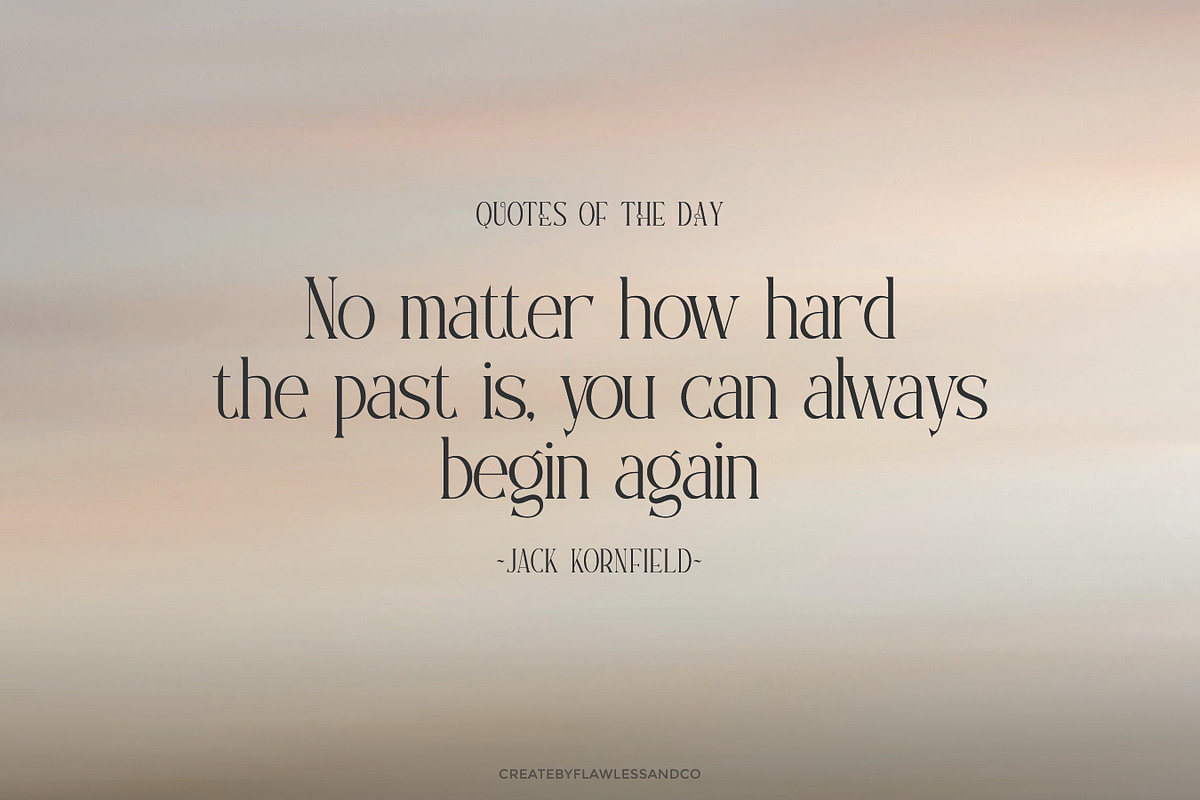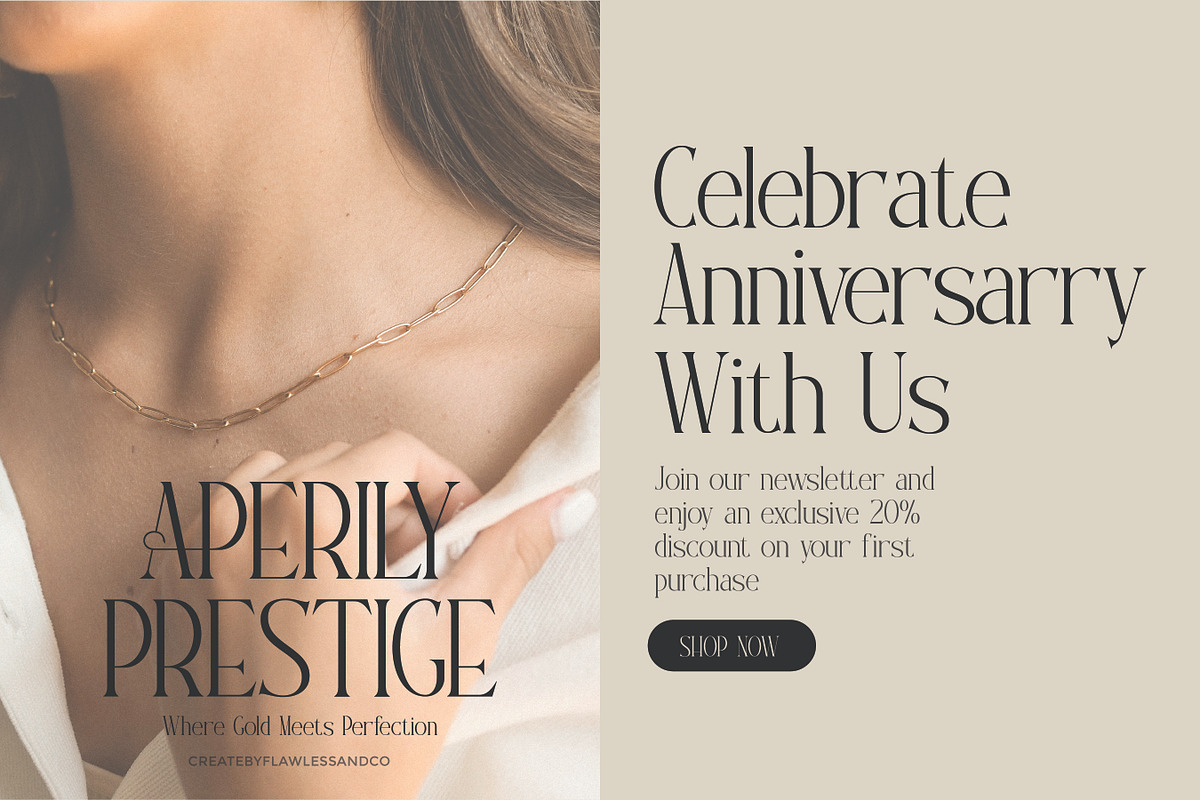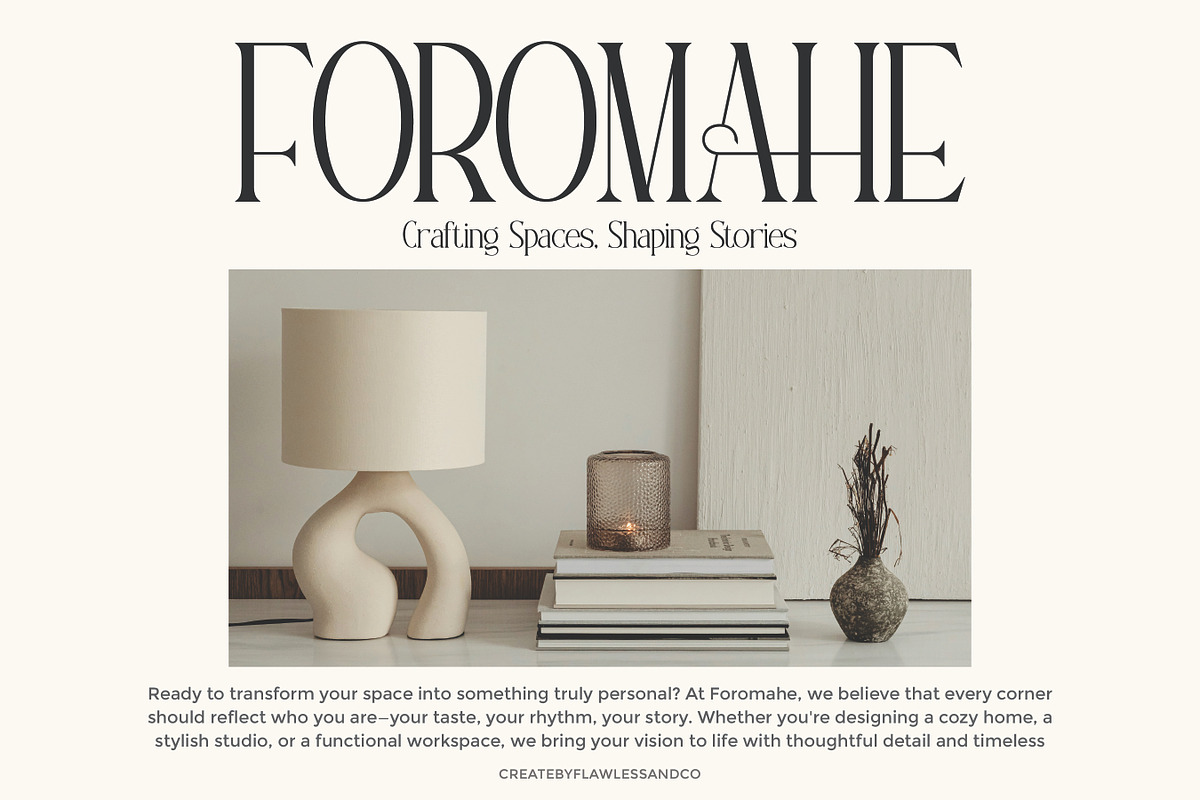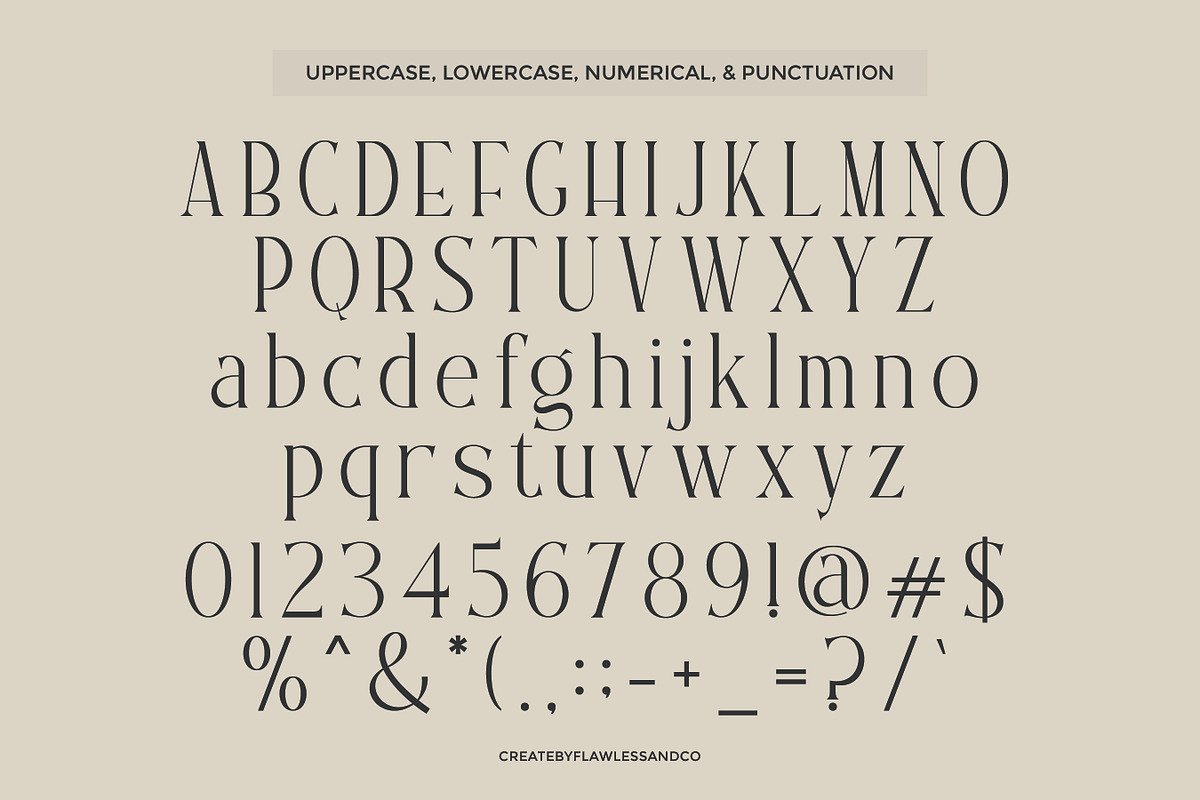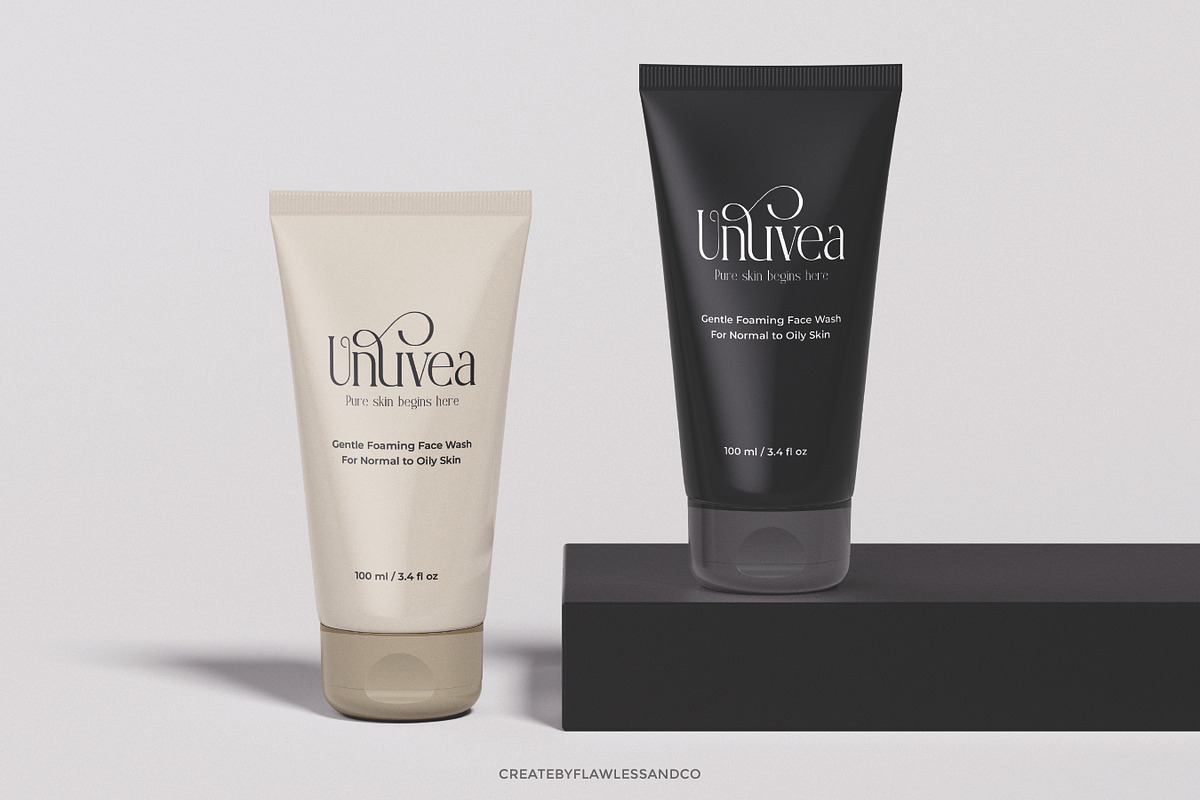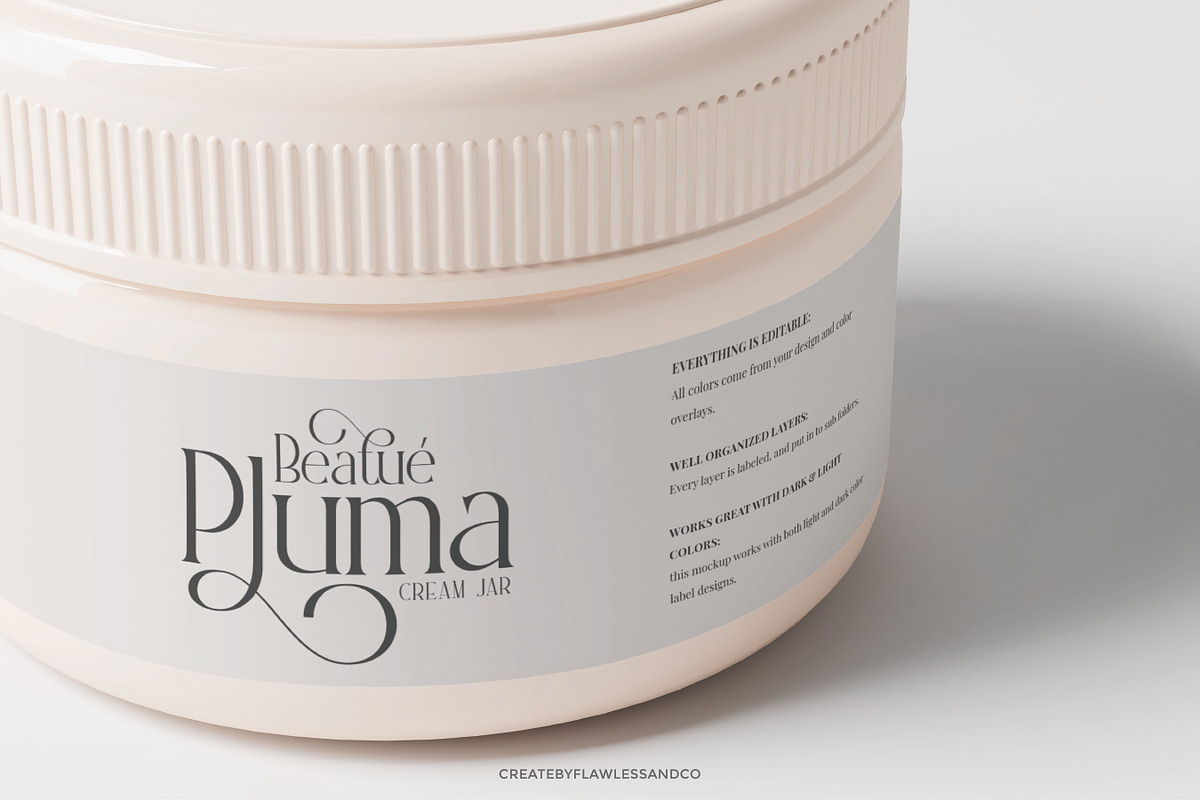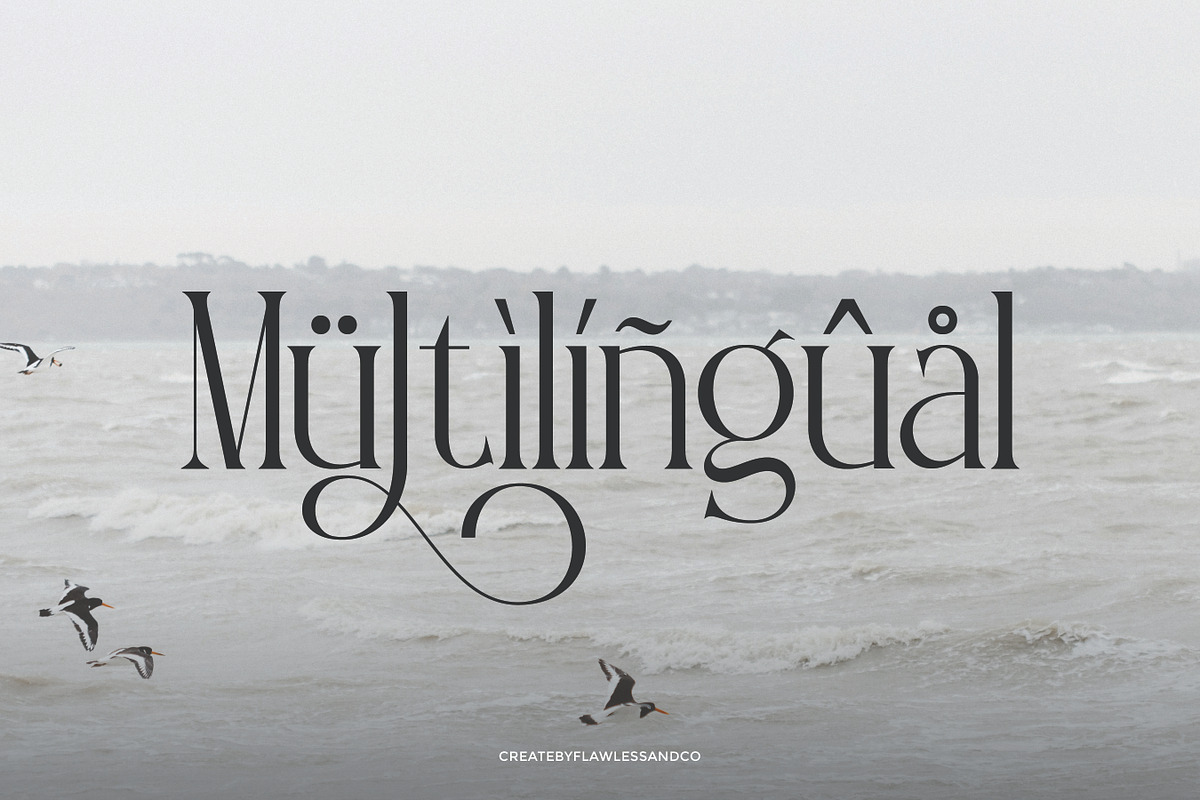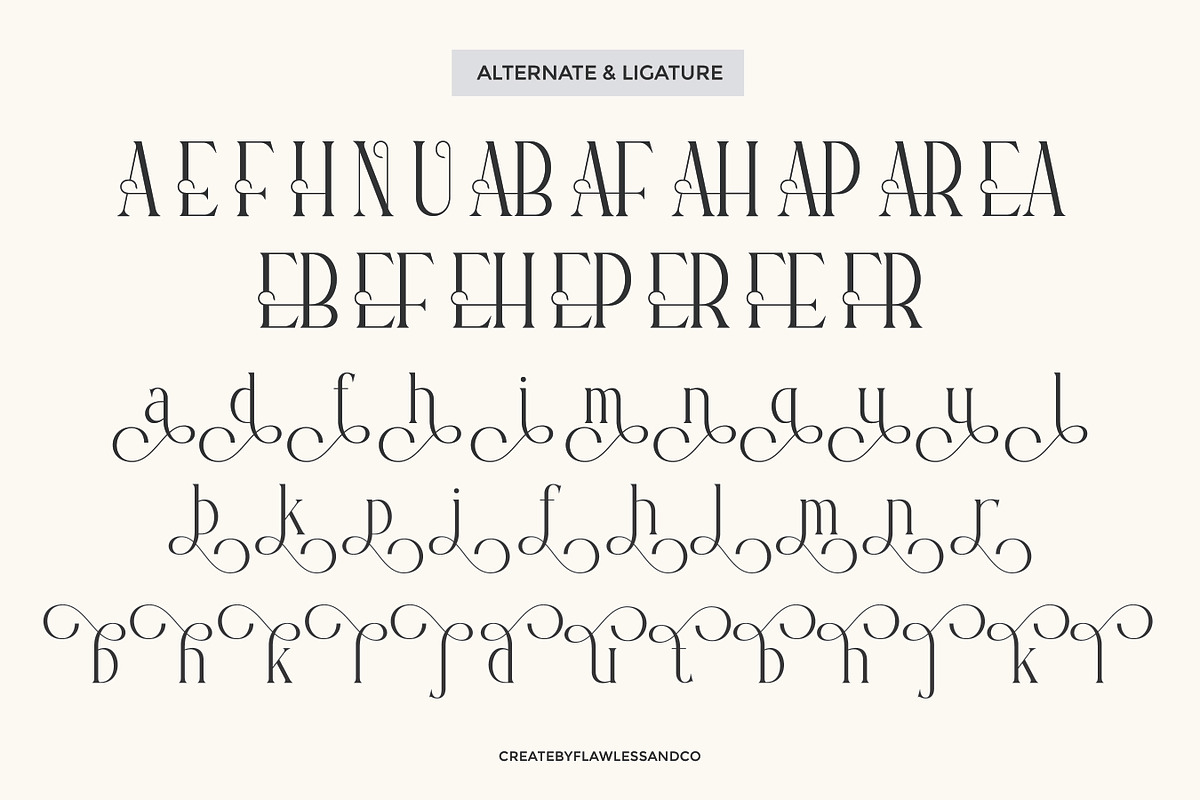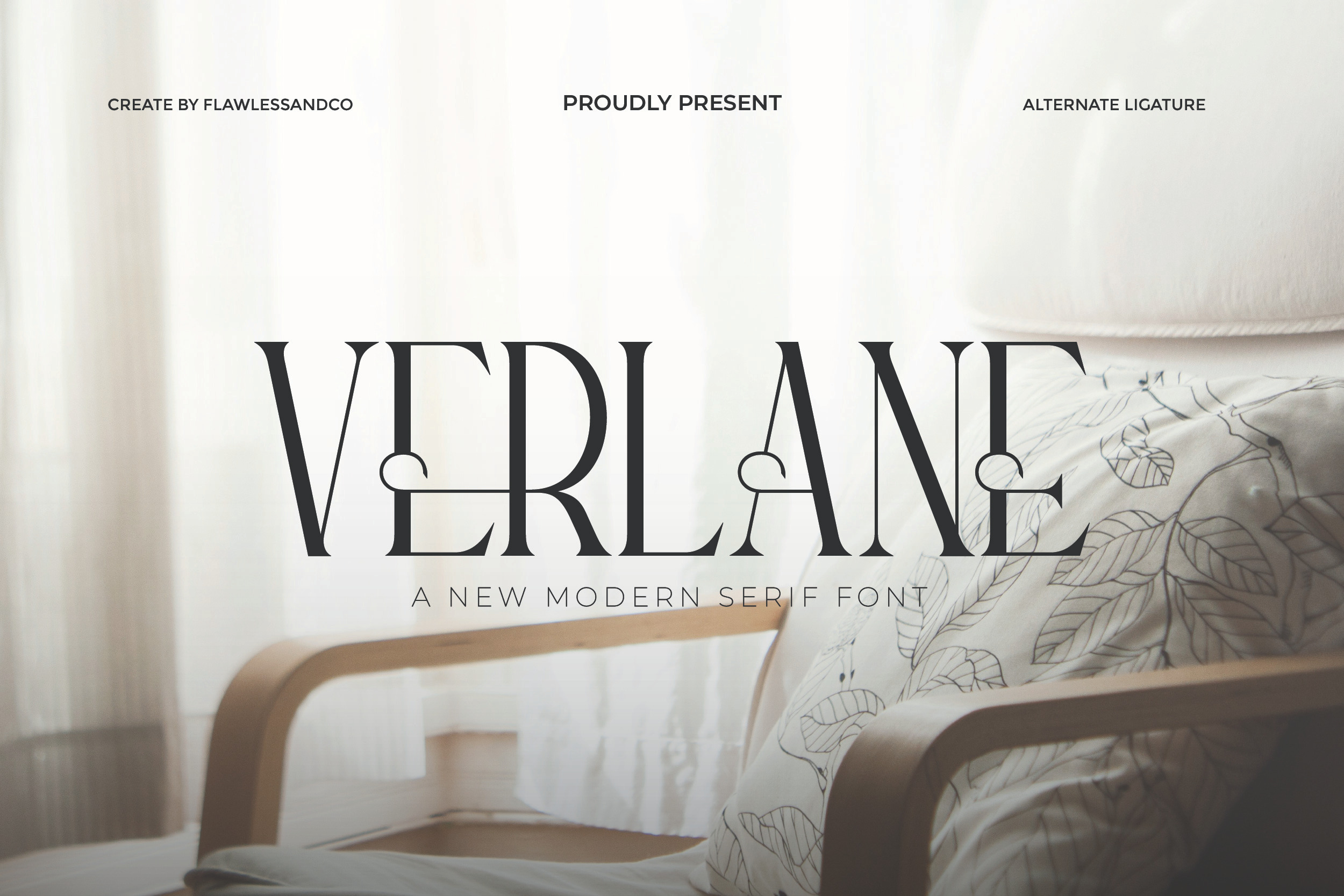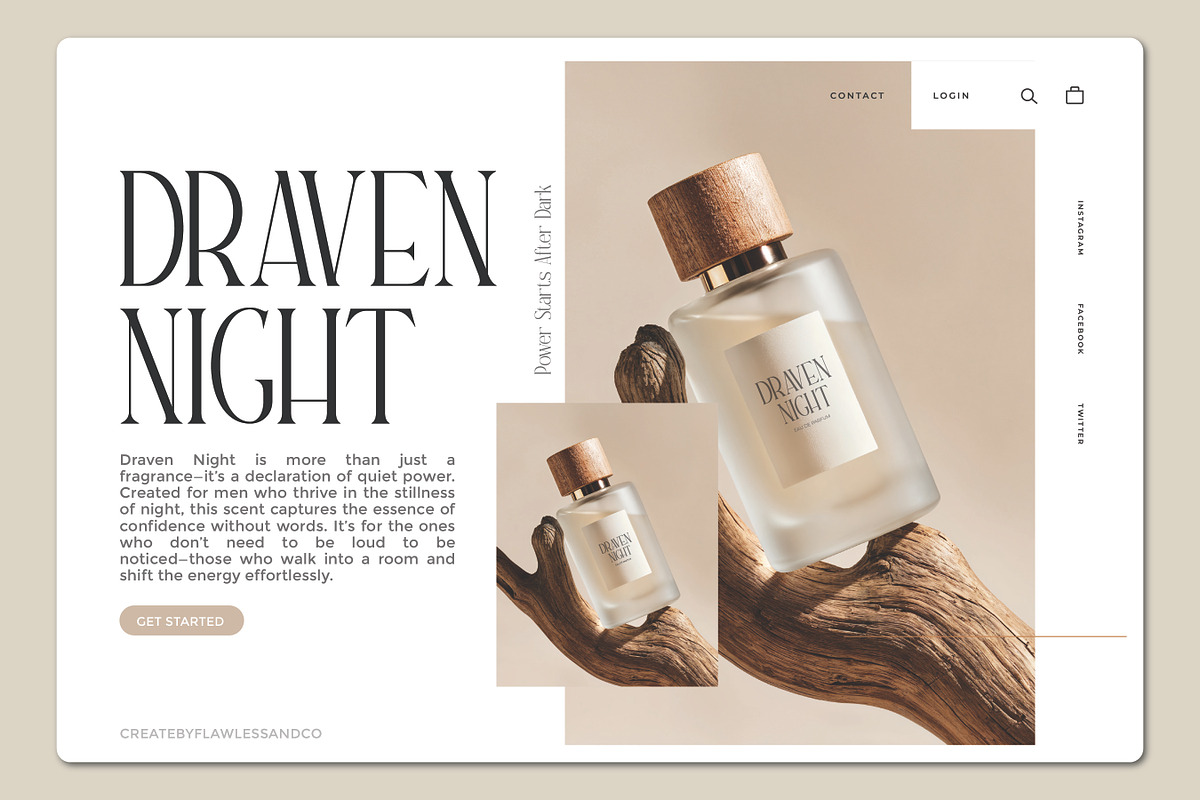
Verlane - Serif Modern Font
Verlane — Modern Serif Font
Verlane is a classic-modern serif typeface that blends vintage elegance with contemporary simplicity. Designed with meticulous attention to detail, Verlane features soft yet confident serifs, balanced proportions, and graceful curves, making it an ideal choice for designs that demand sophistication and high-end appeal. This typeface strikes the perfect harmony between traditional charm and modern refinement. With stylish alternates and decorative ligatures, Verlane offers endless creative potential—perfect for projects that aim to make a lasting visual impression.
- Artistic alternates & elegant ligatures
- Full punctuation & numerals
- Luxury & fashion branding
- Editorial & magazine layouts
- Sophisticated logo designs
- Premium product packaging
- Elegant wedding invitations & stationery
Who Should Use Verlane?
Verlane is ideal for designers, creatives, and brands seeking a serif typeface that conveys timeless elegance and understated luxury. Its refined aesthetic and versatile features make it especially suitable for:
- Brand designers crafting upscale logos and visual identities
- Art directors working on fashion, beauty, or lifestyle magazines
- Packaging designers creating premium product experiences
- Stationery designers producing wedding invitations, event suites, or high-end personal branding
- Creative studios looking for a go-to serif that blends classic style with modern edge
- Content creators and bloggers who want their visuals to feel editorial and elevated
Whether you're designing for a boutique brand or an international campaign, Verlane brings a level of sophistication that enhances every visual narrative.
A Must-Have Font for Brand, Logo, Beauty & Wedding Designers
Verlane is more than just a typeface — it's a design essential for creators who value elegance, clarity, and timeless beauty. With its graceful curves, delicate serifs, and refined letterforms, Verlane brings a sense of sophistication to every project. Whether you're building a brand, designing a signature logo, crafting luxury packaging, or creating heartfelt wedding invitations, Verlane elevates your work with effortless style.
Its versatile character set, stylish alternates, and elegant ligatures provide endless design flexibility, making it a powerful tool for creatives who want to make a lasting impression.
Why Choose Verlane for Brand, Logo, Beauty & Wedding Designer Projects?
Verlane was crafted with a designer’s eye and a storyteller’s heart — making it the perfect choice for projects that require a touch of elegance and distinction.
Here’s why designers choose Verlane:
Refined Elegance Verlane’s timeless serif forms and graceful curves add a sense of luxury and sophistication to any design — perfect for high-end branding and boutique logos.
Creative Flexibility With a rich set of alternates and ligatures, Verlane adapts beautifully to different aesthetics — from modern minimalism to romantic, editorial styles.
Perfect for Emotional Design Whether you’re designing wedding invitations, event stationery, or lifestyle brands, Verlane evokes warmth, beauty, and emotion with every letterform.
Professional & Versatile Ideal for everything from logos and packaging to website headers and magazine spreads, Verlane delivers a consistent, high-end look across all platforms.
Multilingual Ready Designed to support multiple languages, so your work can speak to a global audience with elegance and clarity. In short: If you’re a designer aiming to create timeless, beautiful, and emotionally resonant work — Verlane is the typeface that elevates your vision.
Suitable for:
- Luxury brand identity & upscale logo design
- Elegant wedding invitations & event stationery
- High-end beauty & fashion packaging
- Editorial magazine layouts & lookbooks
- Feminine blog headers & social media graphics
- Sophisticated website typography
- Minimalist business cards & personal branding
- Boutique product labels & packaging